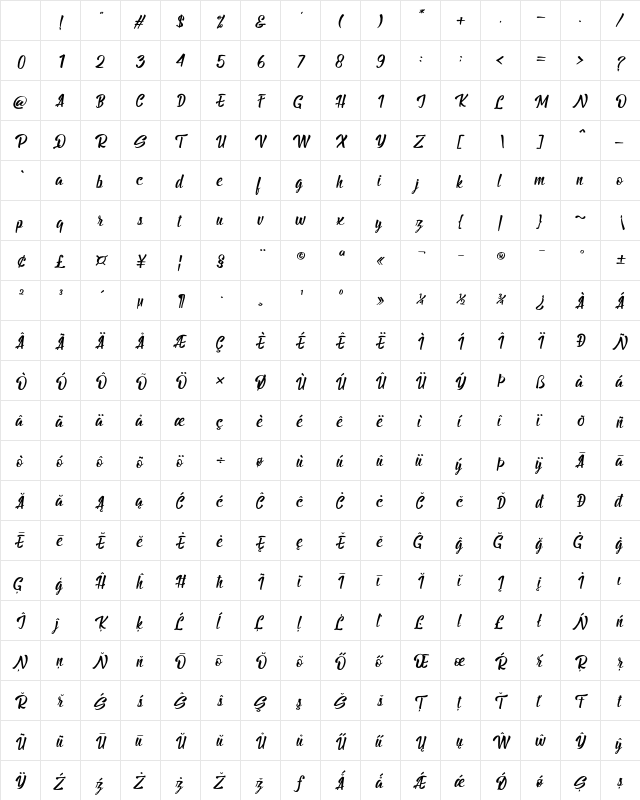
Complete Billy The Gang Italic glyph index. Displaying only characters natively supported by Billy The Gang Italic font.
Billy The Gang is a composed and adaptable typeface that performs quietly and consistently across a wide range of design contexts. The slanted form adds forward momentum and visual energy.
Pro Tip: Use Billy The Gang for emphasis, pull quotes, and subheadings where its slanted energy can add rhythm to the layout.